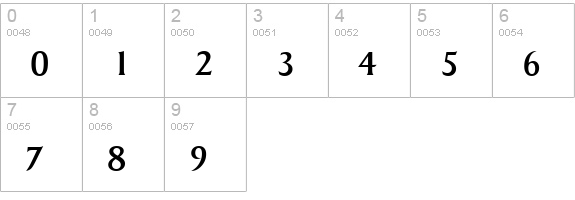
SydneySerial-Regular Font Details
SydneySerial-Regular is the standard, neutral variant in the SydneySerial typeface family \xE2\x80\x94 well suited to general body text, paragraphs, and standard typographic work.
SydneySerial-Regular is a sleek and modern font that exudes sophistication and professionalism. With its clean lines and balanced proportions, this font is perfect for a wide range of design projects, from branding to editorial design. Its versatility makes it a go-to choice for designers looking to make a bold statement while maintaining a polished aesthetic. The best part? SydneySerial-Regular is available for free download at FontsMarket.com. Whether you're working on a personal project or a professional assignment, this font is easily accessible and ready to elevate your designs. Don't miss out on the opportunity to add SydneySerial-Regular to your font collection today!